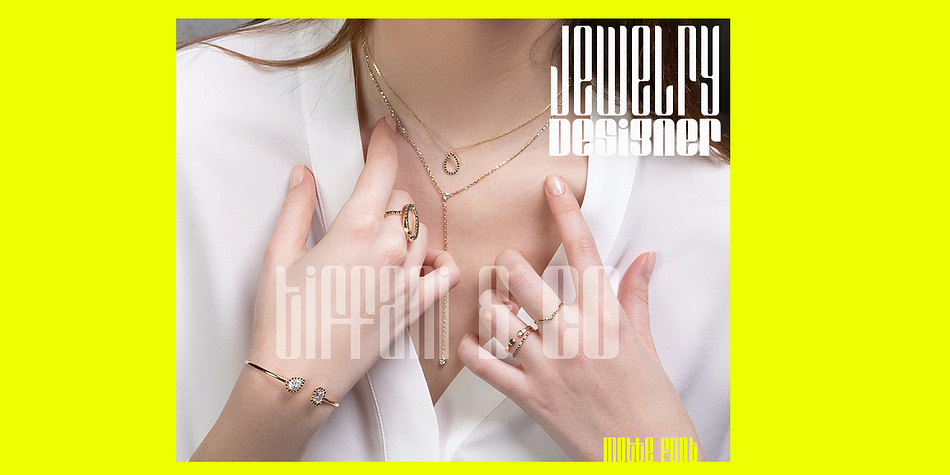
Motte
Motte is a display sans font family. This typeface has eighteen styles and was published by TypeClassHeroes.
Introducing Motte is a tall and wide sans comes with classic casual family comes with 18 variable style to get more stunning. Use this font family for any branding, product packaging, invitation, quotes, t-shirt, label, poster, logo etc.
- Uppercase & Lowercase
- Number & Symbol
- International Glyphs
- Ligatures
- Multilingual support